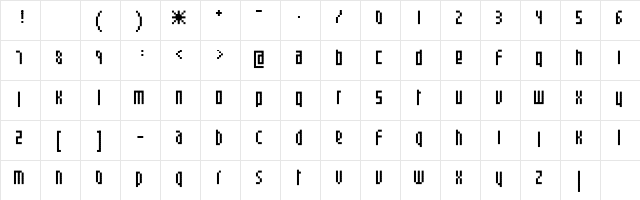
clickscope Regular
Design Context for clickscope Typeface
clickscope takes a measured approach to typography — its balanced proportions and neutral character make it a reliable workhorse for both digital and print work.